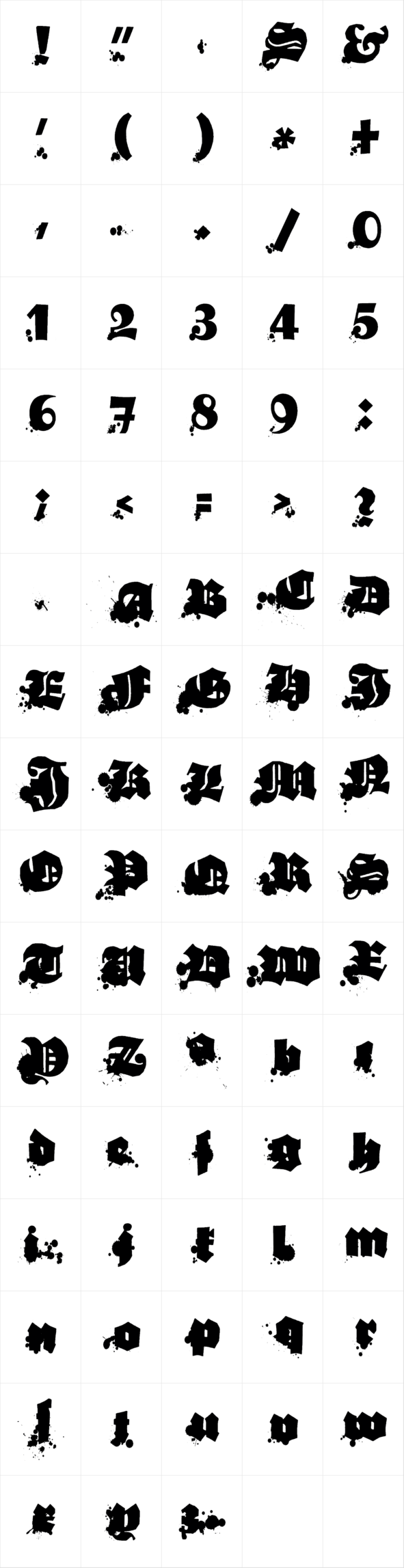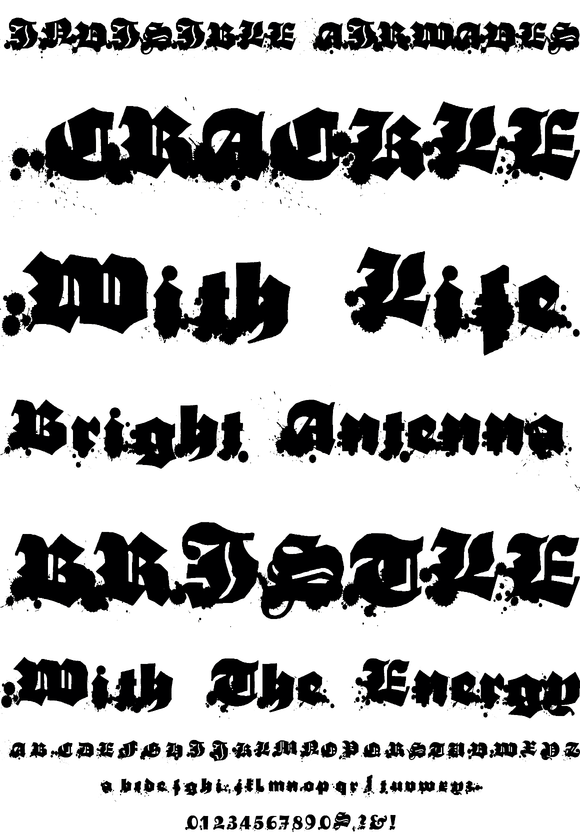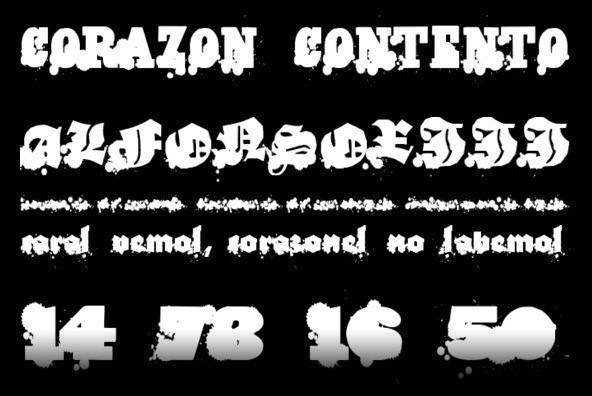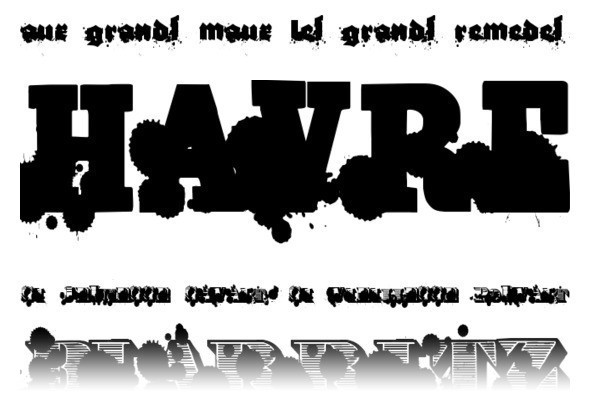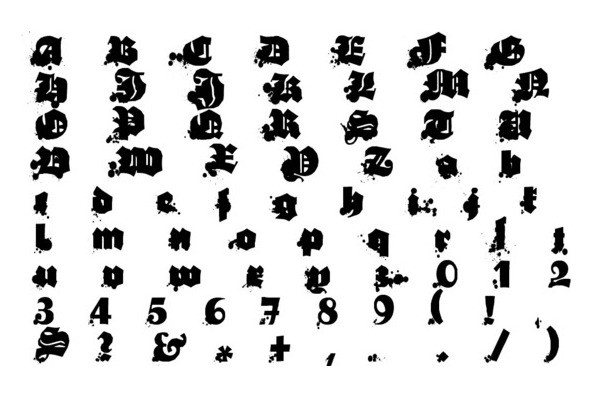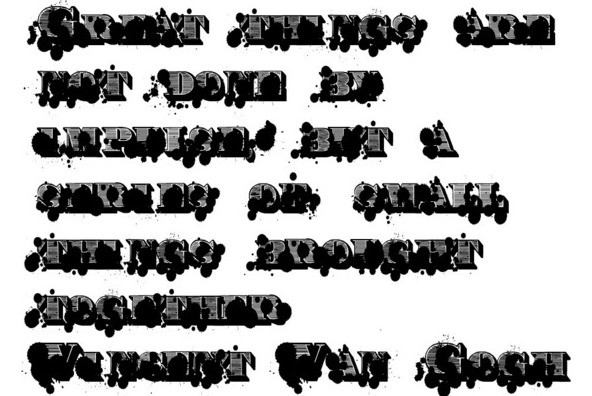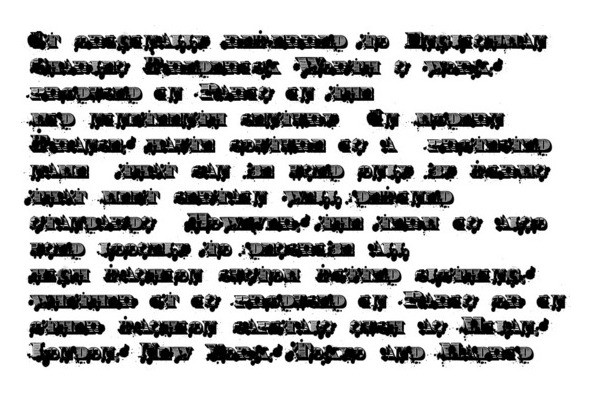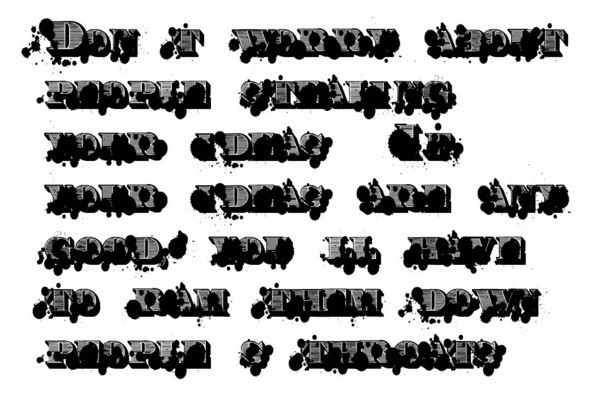
Monkey Collection
Foundry: Intellecta Design
A collection of fonts by the type foundry Intellecta Design. Distressed and antique, use these fonts in display purposes for a stylized type design. Contains a limited amount of letter designs.